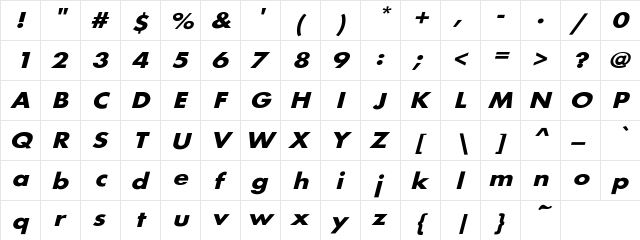
BelmarExtObl-Bo Regular
Design Context for BelmarExtObl-Bo Typeface
BelmarExtObl-Bo offers clean, dependable letterforms without strong stylistic allegiance, making it a practical choice for designers who need flexibility.